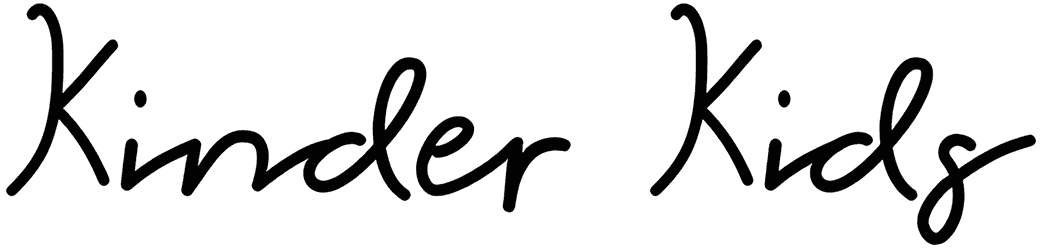
Kinder Kids Font
Impressing the audience would be a piece of cake with the help of a script font such as Kinder Kids that leads to a sense of personalization, drama, delicacy, and softness. This handwritten font comes with a cursive design that dances along the baseline.
Due to its sophisticated flow, reading some of its characters would be a little bit tricky, but you can make charming outcomes by trying it on movie posters, product packaging, labels, and banner ads.